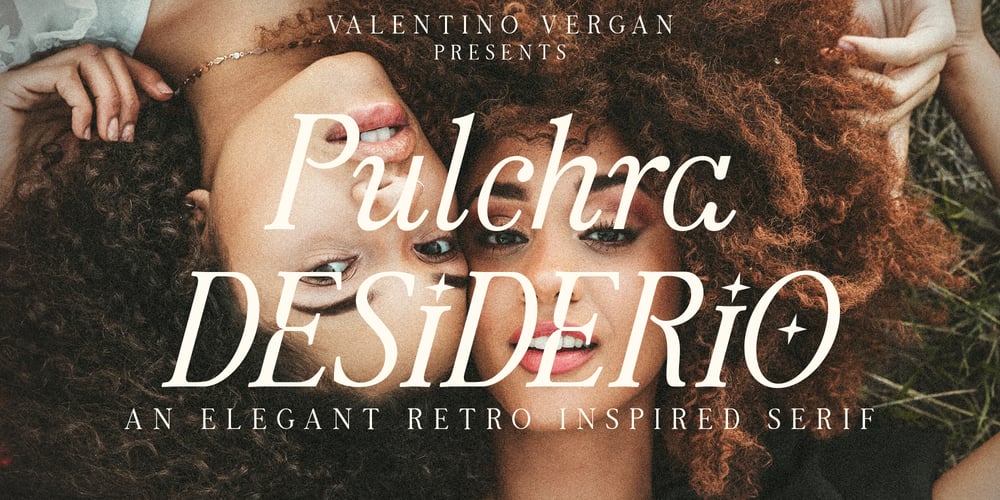
Pulchra Desiderio Font Family was designed by Martin Katibi and published by Valentino Vergan. Pulchra Desiderio contains 2 styles and family package options. Pulchra Desiderio which in Latin means “Beautiful Nostalgia” is an elegant resto inspired serif, which comes with a complementary italic version. The typeface is a mix between a vintage and modern look, this unique combination will make your next project really standout. The typeface is also designs to look great in both large and small settings, this makes the typeface great for headlines and editorials.The typeface comes with creative ligatures and alternative characters, this makes it perfect for creating nostalgic and elegant designs such as: mastheads, magazines, feminine logos, wedding invitations, Instagram posts, websites, blog posts, pull quotes, editorials and much more.If you are looking for something modern and nostalgic for you next project, this is the typeface for you.WHAT YOU GET: Uppercase and lowercase letters.Numbers.Punctuation.Ligatures.Alternate characters.Multilingual symbols.I hope you enjoy using the Pulchra Desiderio typeface.